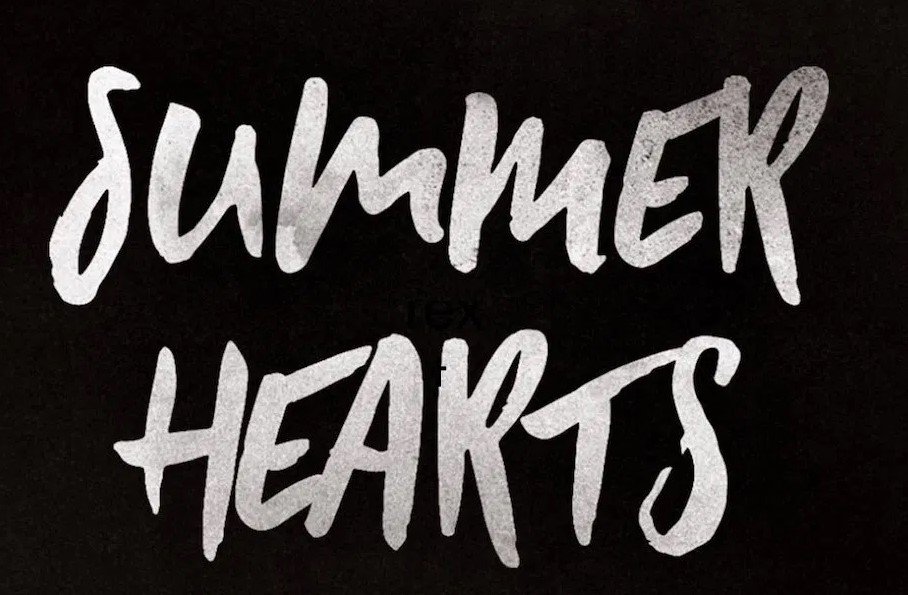
This is one of the most popular brush typefaces that are present right now. The pairing function of this typeface works great when used with gibson font. This
Get ready to meet the **Summer Hearts Font**, a beautiful brush script typeface created by hustle & co. No need to stress about finding the perfect font - this one is a top pick. Dive in and discover the secrets of this stunning typeface
One can never underestimate the attractiveness of this typeface. This is the ideal typeface for most of the projects such as designing app UIs, and app designs.
This is one of the famous free fonts. This font used by many graphic designers because of its hand-drawn styles. Let’s have a look at further details of Summer Heart that is a great typeface. Font Similar to Summer Hearts
This is a graphic design font that we can use in directories, annual reports, and magazines, etc.
Summer Hearts is a great brushed typeface.